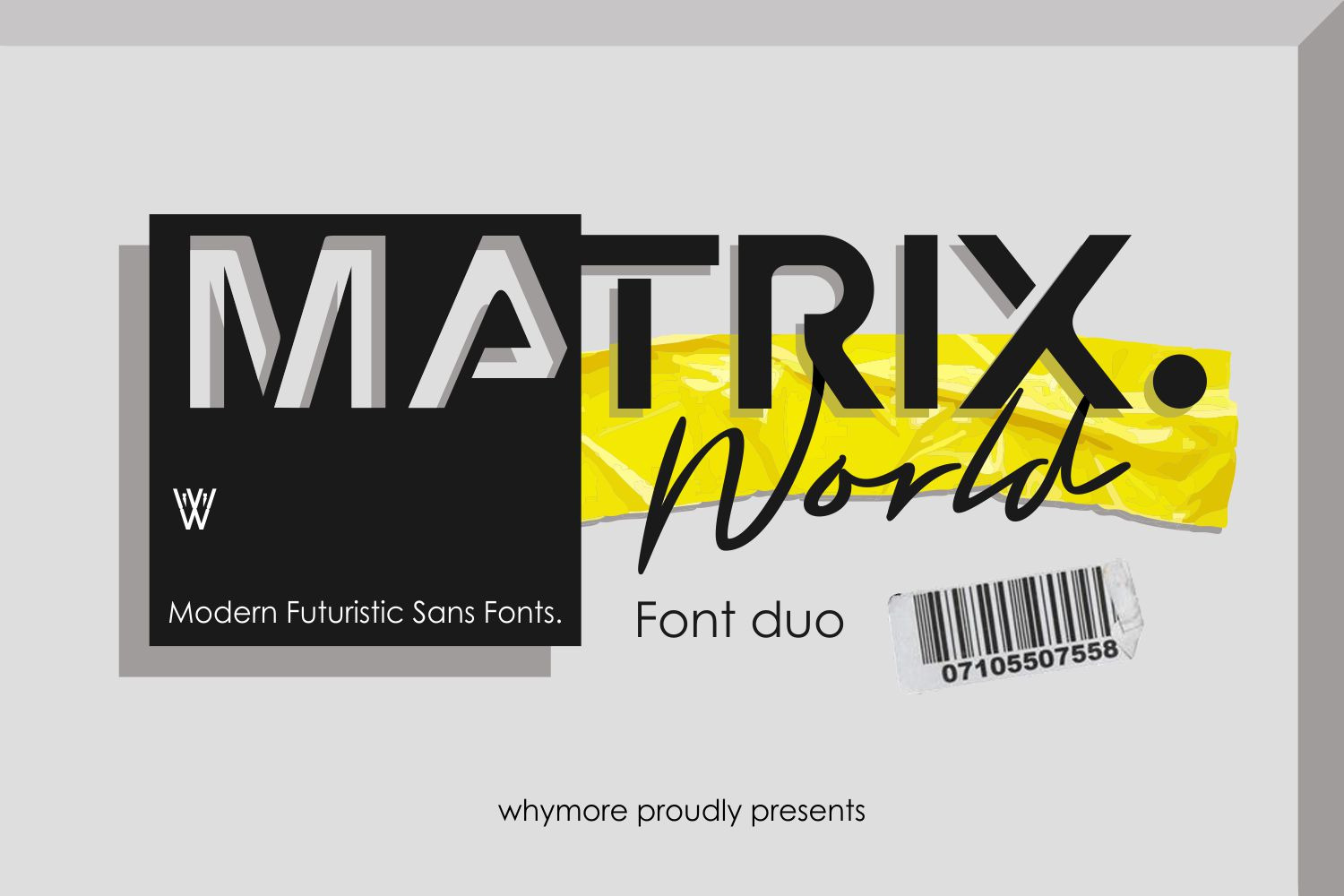
Matrix World Font Duo Sans Script
Enhance Your Designs with Matrix World Font Duo: A Unique Blend of Serif and Sans Fonts
Matrix World Font Duo offers a futuristic and captivating style, ideal for designers seeking a standout typeface. Choose Matrix World for a sophisticated, timeless, and visually stunning design experience.